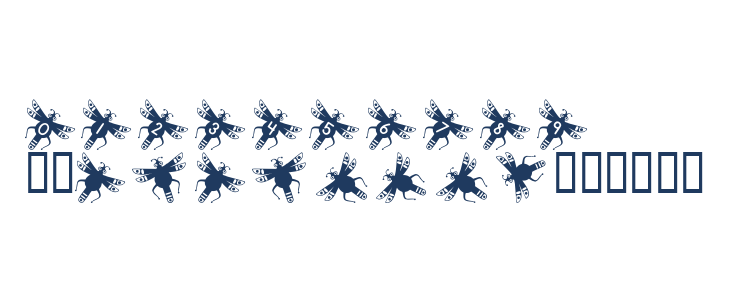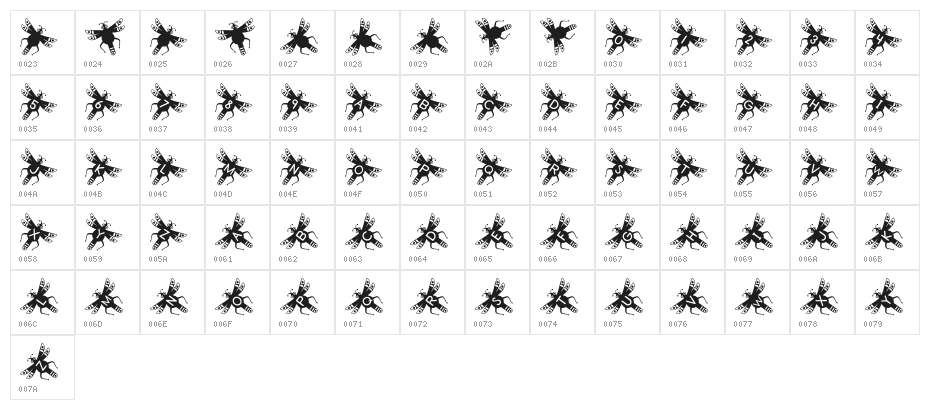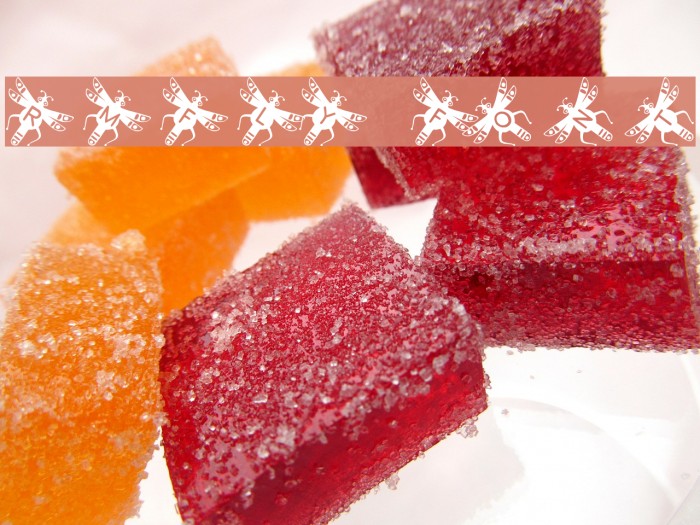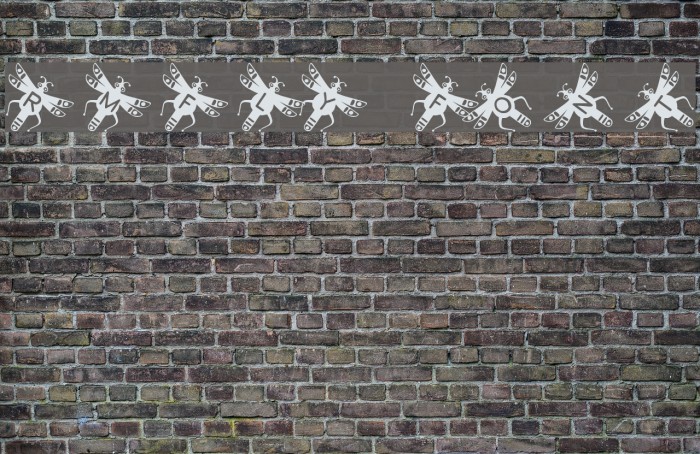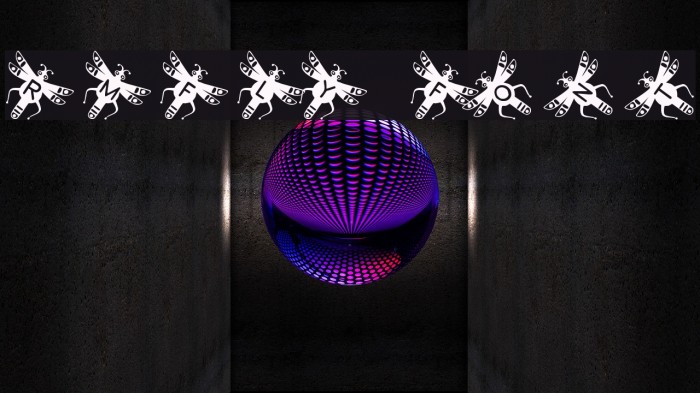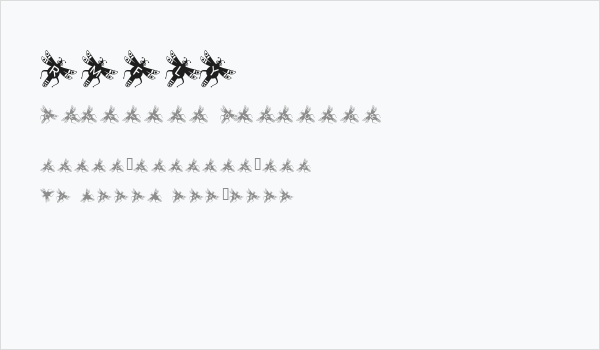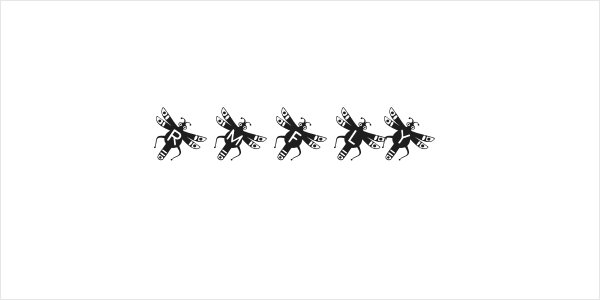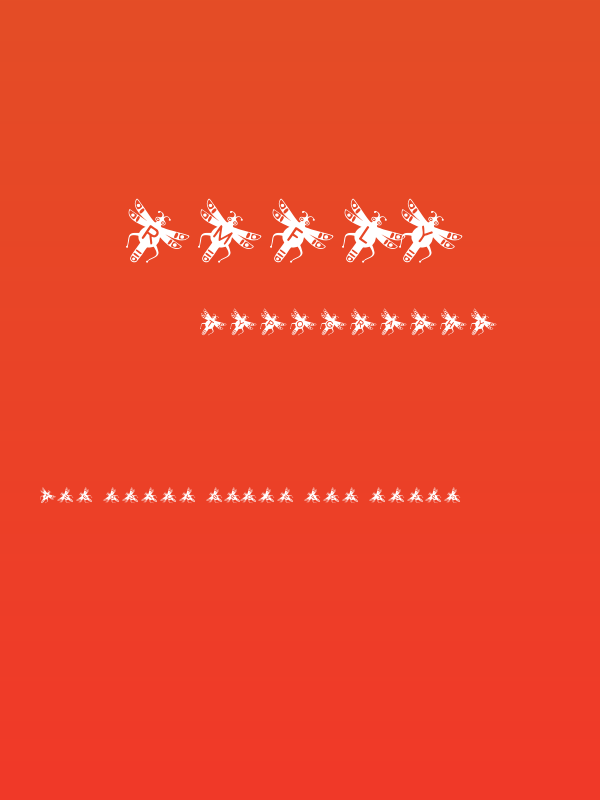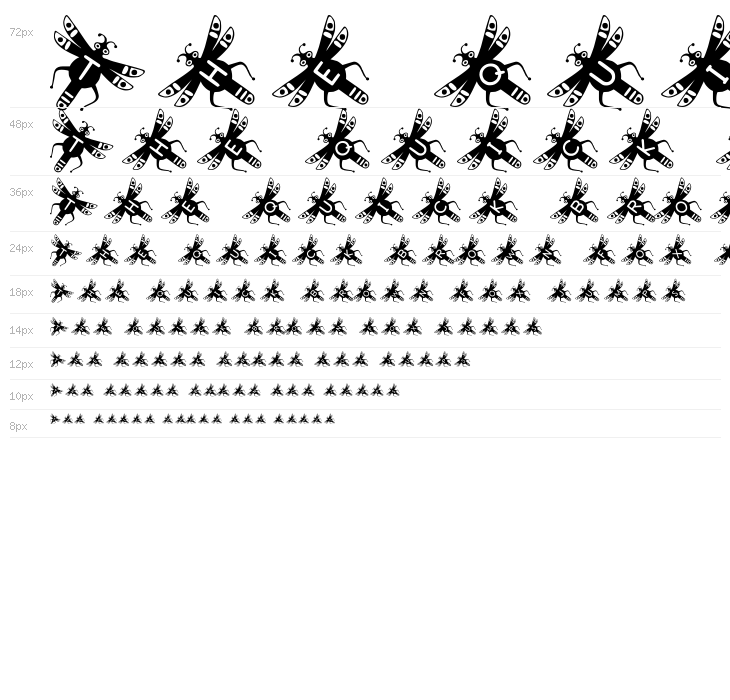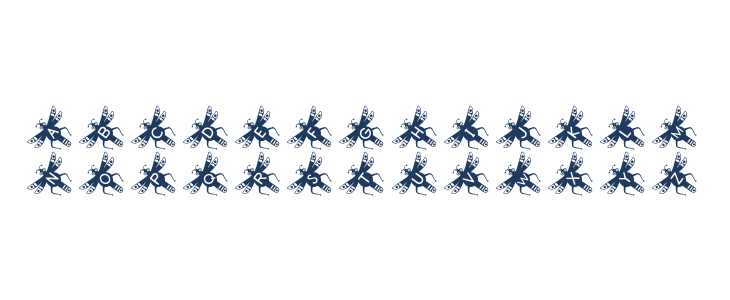
RMFLY Font
RMFLY Description
This unique font features characters embedded within whimsical fly illustrations, creating a playful and imaginative design. Each letter and number is creatively integrated into the body of a stylized fly, with wings and legs adding to the overall charm. The font maintains a consistent style across all characters, ensuring readability while offering a distinct visual appeal. The use of bold, black silhouettes enhances the visibility of each character, making it suitable for eye-catching designs. The font's decorative nature makes it ideal for projects that require a fun and engaging aesthetic.
Overall StyleWhimsical, Playful, Decorative
Use CaseLogos, Posters, Creative Branding
Proposed ProjectsIdeal for children's books, playful posters, creative branding, and any project seeking a whimsical touch.